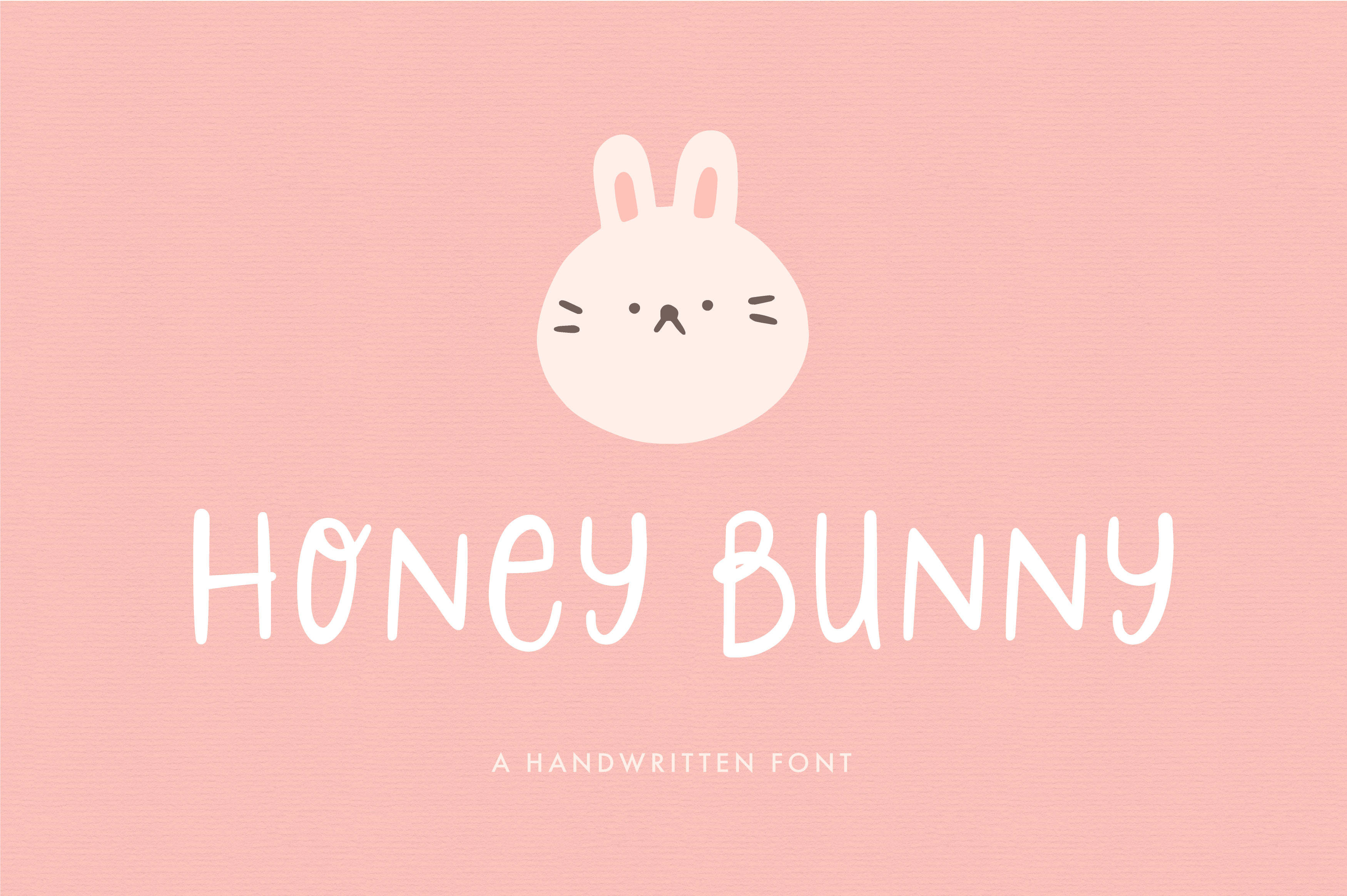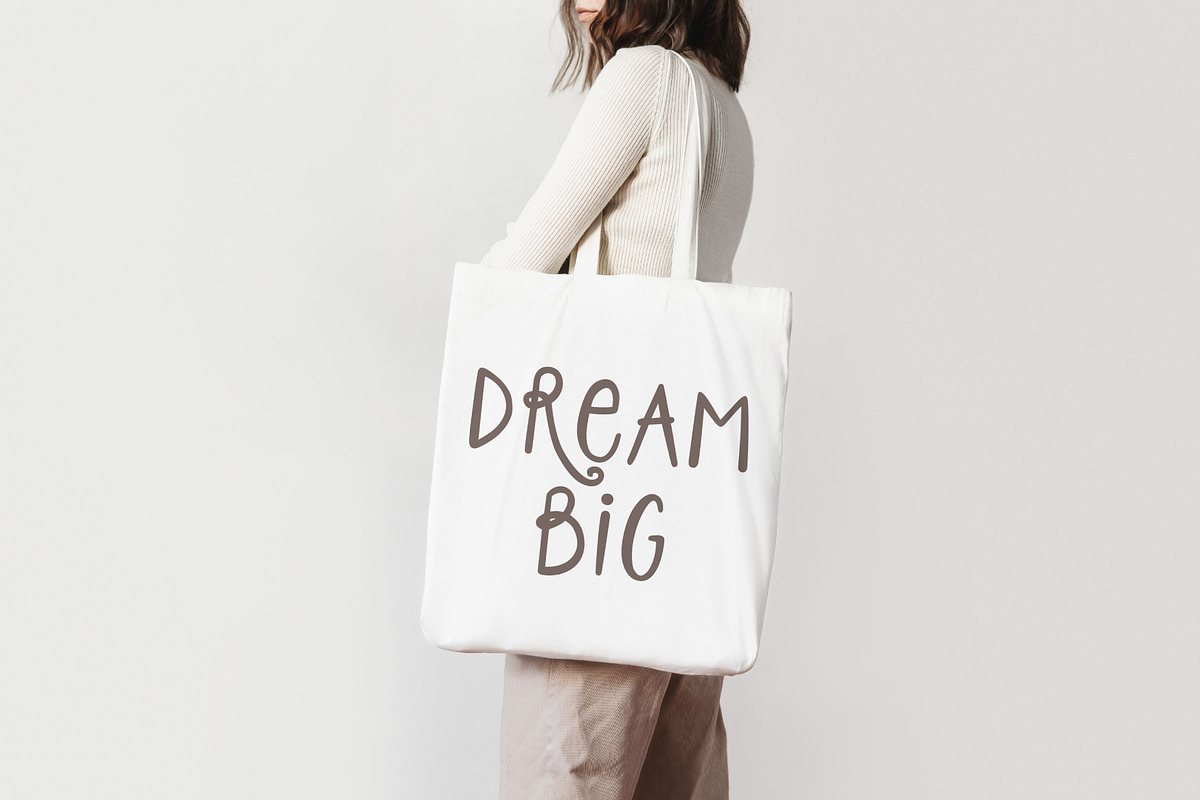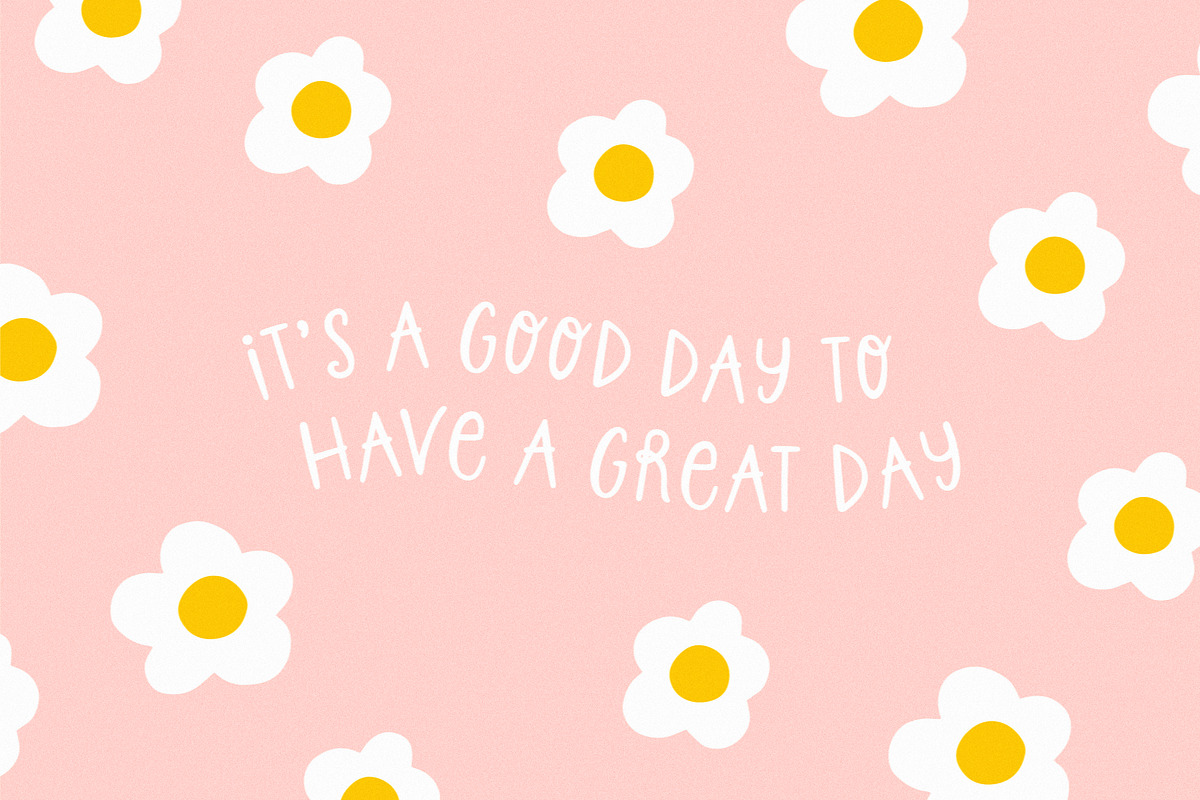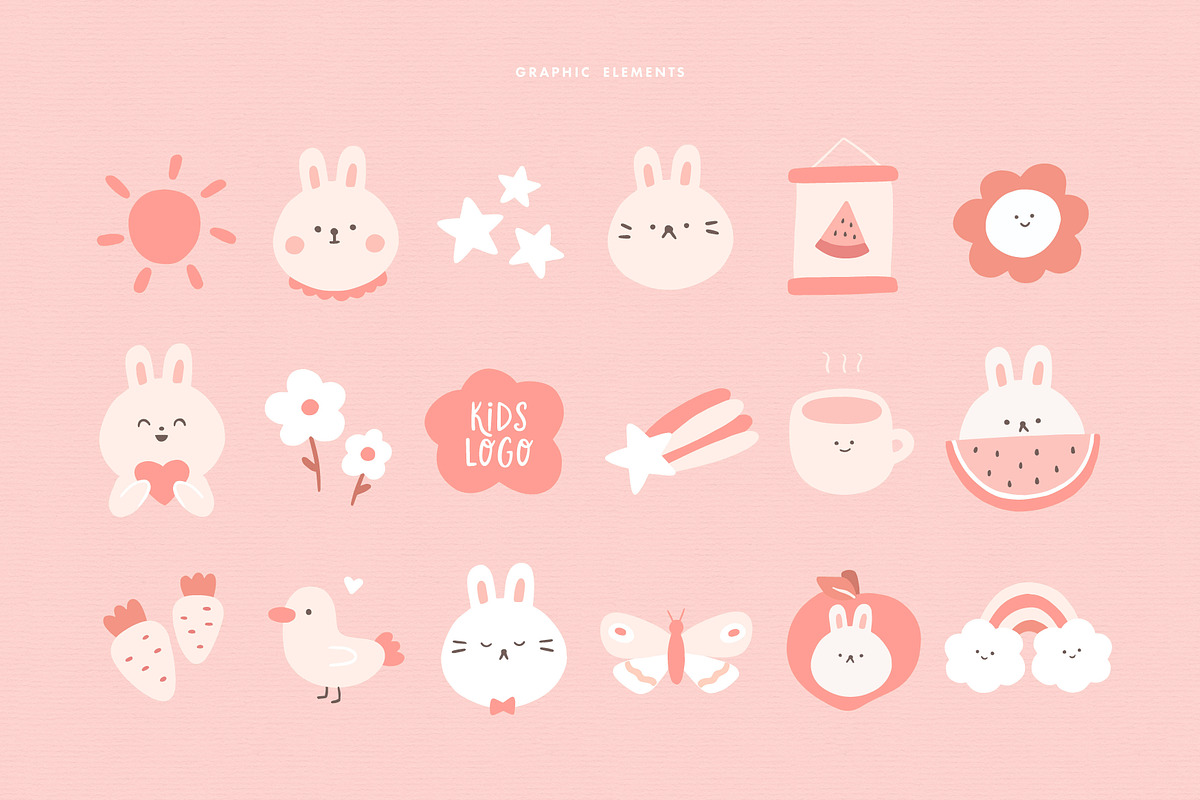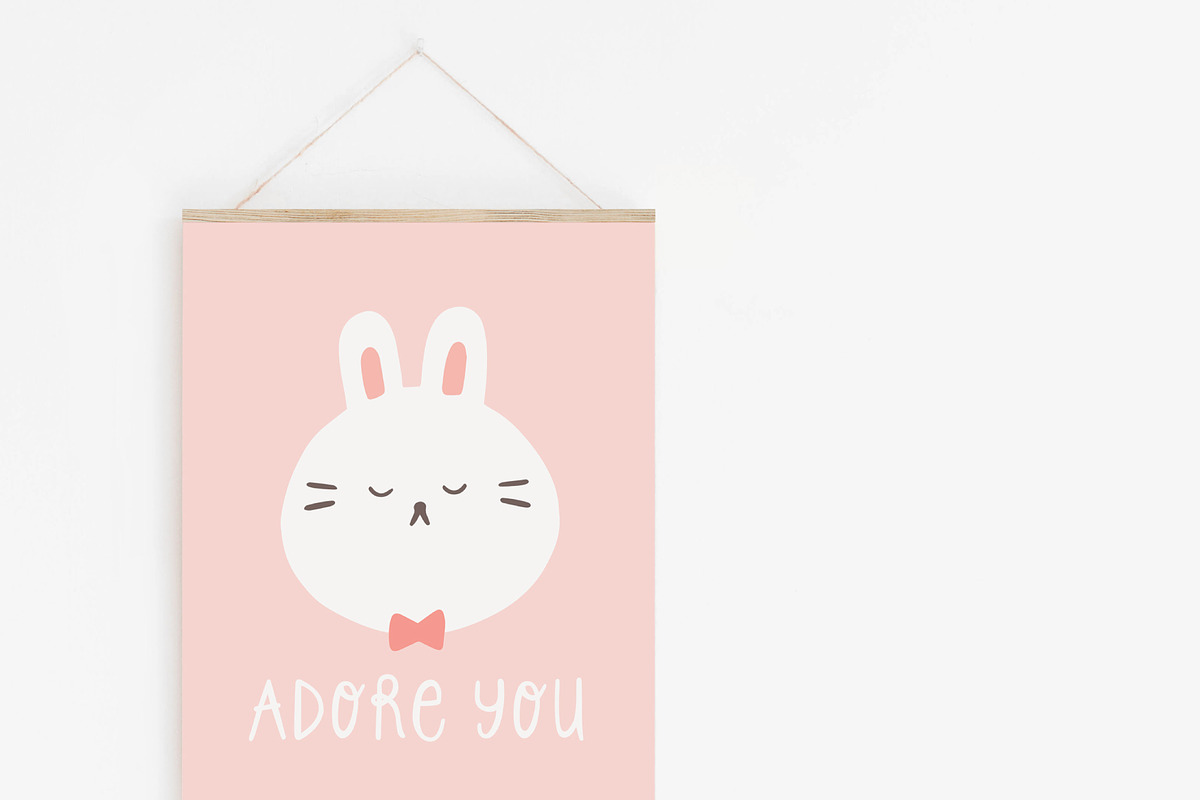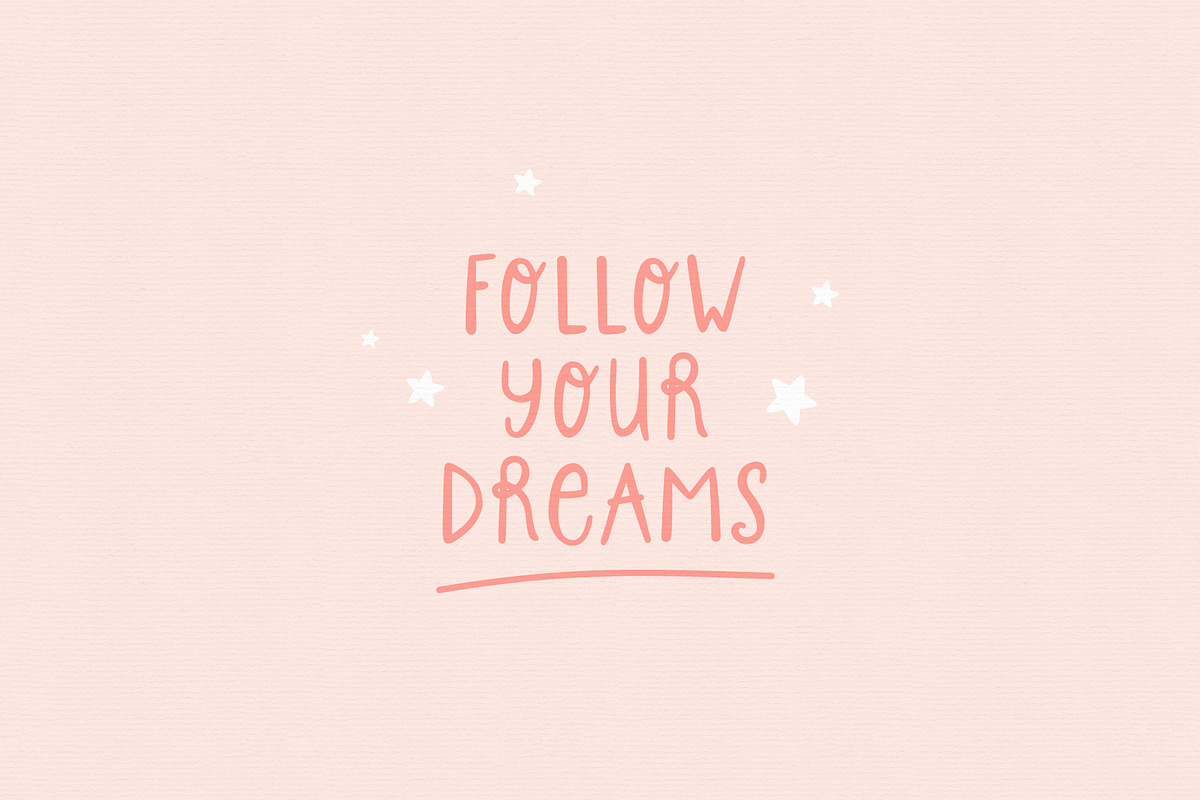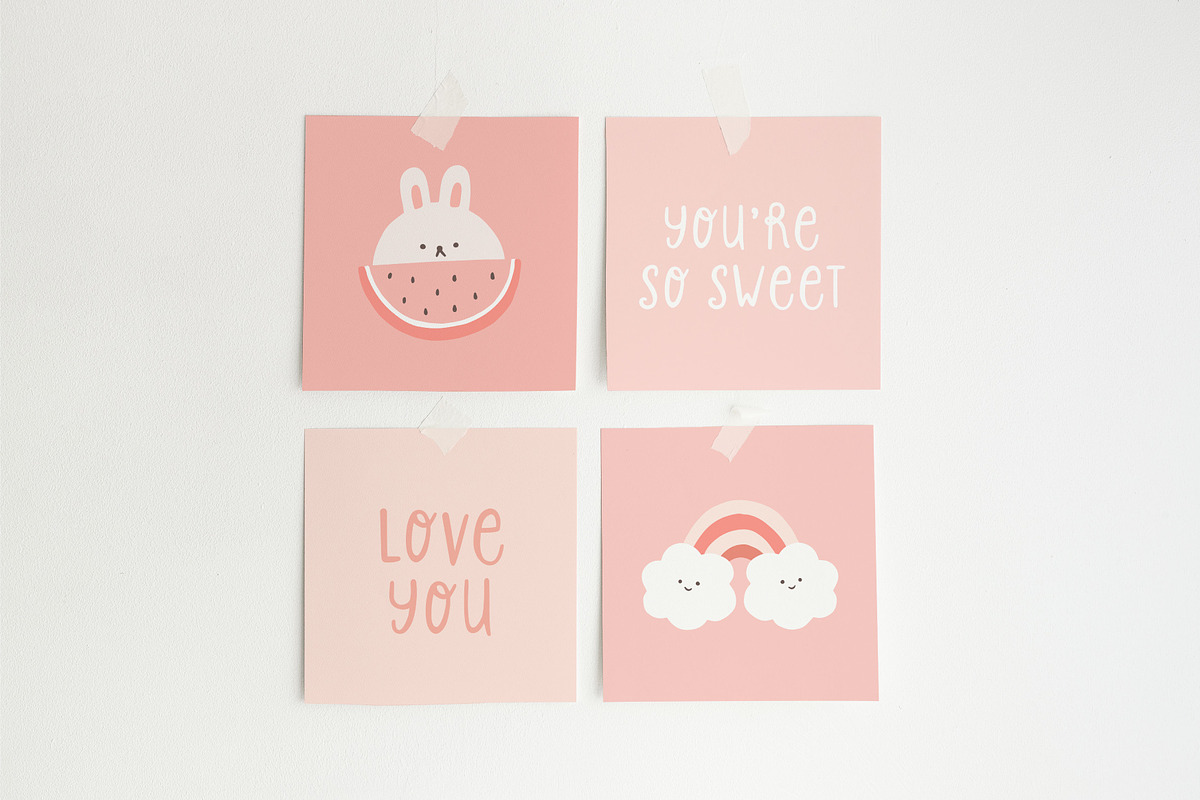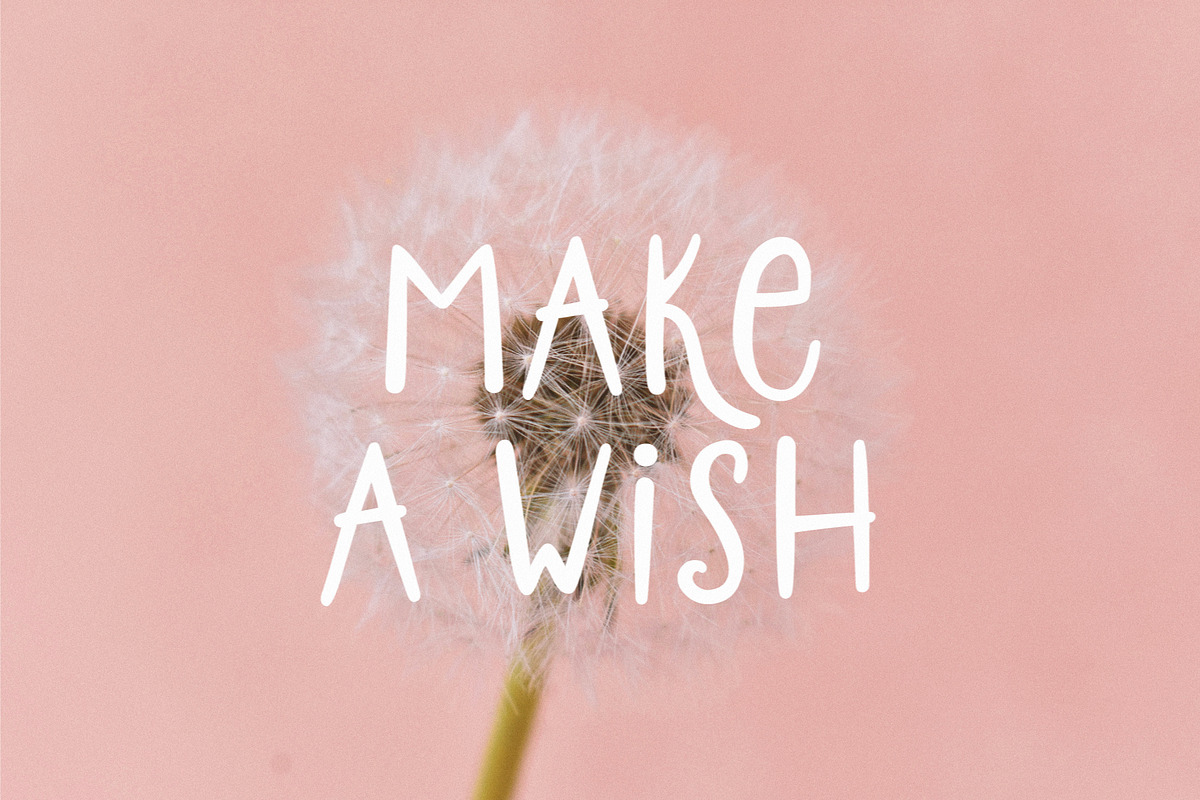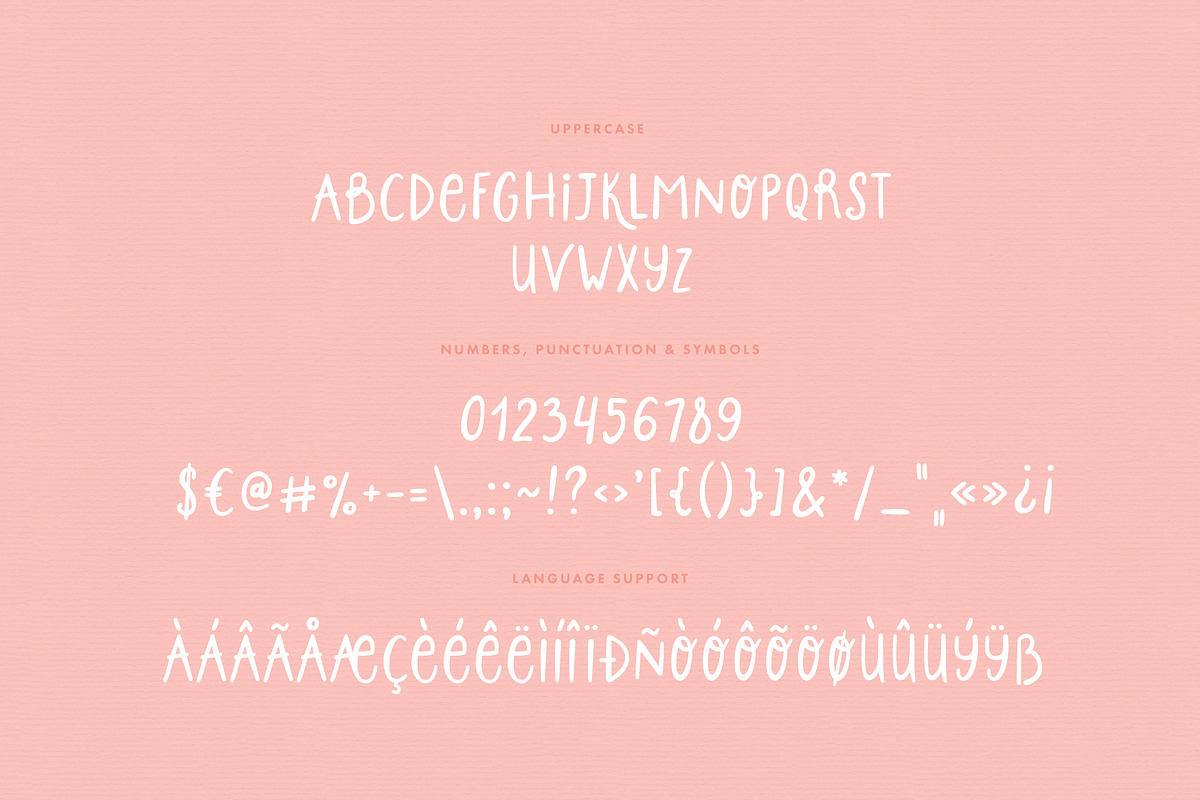
Honey Bunny | Handwritten font
Use for logos, quotes, invitations, greeting cards, journals, posters, clothing and more. This font will make your design looks great and fun!